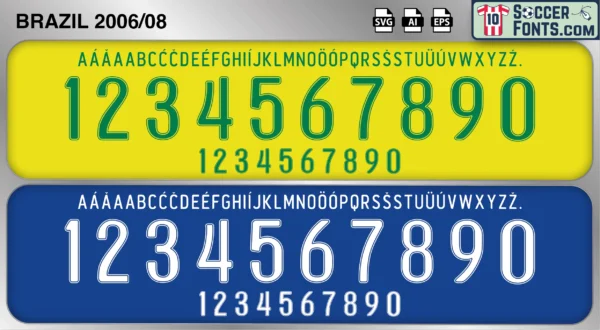
Brazil 2006-08 Font
The Brazil 2006-08 font is an editable soccer jersey lettering design in vector format inspired by the Brazil kit style used during the 2006-08 football seasons. This football font artwork is prepared for football shirt recreations, custom jersey projects, football kit mockups and sports graphic design workflows.
The 2006-08 period marked the beginning of a new chapter for the Brazilian national team following the disappointment of the 2006 FIFA World Cup. Brazil continued to compete at the highest level of international football while gradually refreshing its squad with emerging players alongside established stars. The team featured footballers such as Kaká, Ronaldinho, Robinho, Lúcio, Gilberto Silva and Dani Alves during a transitional era that bridged two generations of Brazilian talent. The period also included the successful 2007 Copa América campaign, where Brazil defeated Argentina in the final to claim another major international trophy despite entering the tournament without several high-profile stars.
The Brazil 2006-08 font became associated with a period of renewal within Brazilian football and the emergence of players who would shape the next World Cup cycle. Brazil shirts from this era remain popular among football shirt collectors because of their connection with Copa América success, the growing influence of Kaká and Robinho, and the evolution of the national team after the legendary early-2000s generation. The Brazil 2006-08 font reflects an important moment in modern football history when Brazil remained one of the most recognizable and influential national teams in the world while preparing for another World Cup campaign.